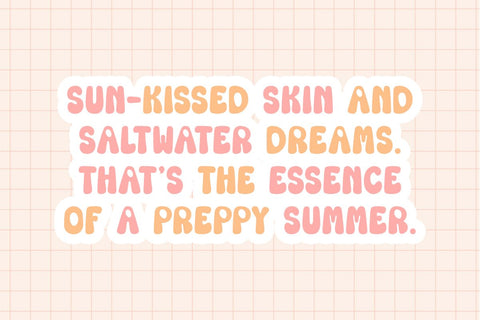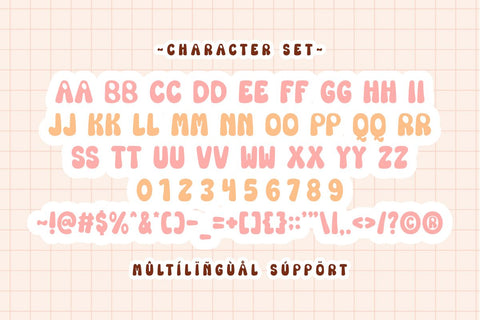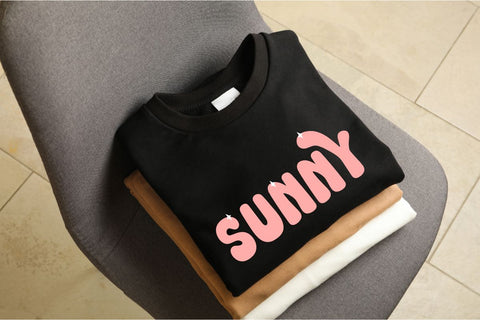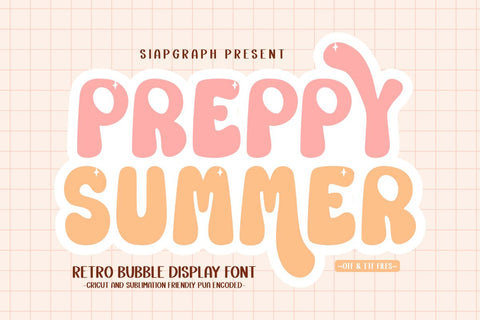
Preppy Summer - Retro Bubble Font
Preppy Summer is a sweet, bubble retro styled display font with character. Designed specifically for crafters, budding designers, POD sellers, and Cricut users. This font is a creative solution to enhance your products from stickers, t-shirts, invitations, labels, vinyl, to KDP interiors.
This font is perfect for Etsy and POD stickers and printables, handmade soap, candle, and food labels. Planners and journals, birthday or event invitations, KDP book covers, and aesthetic quotes.